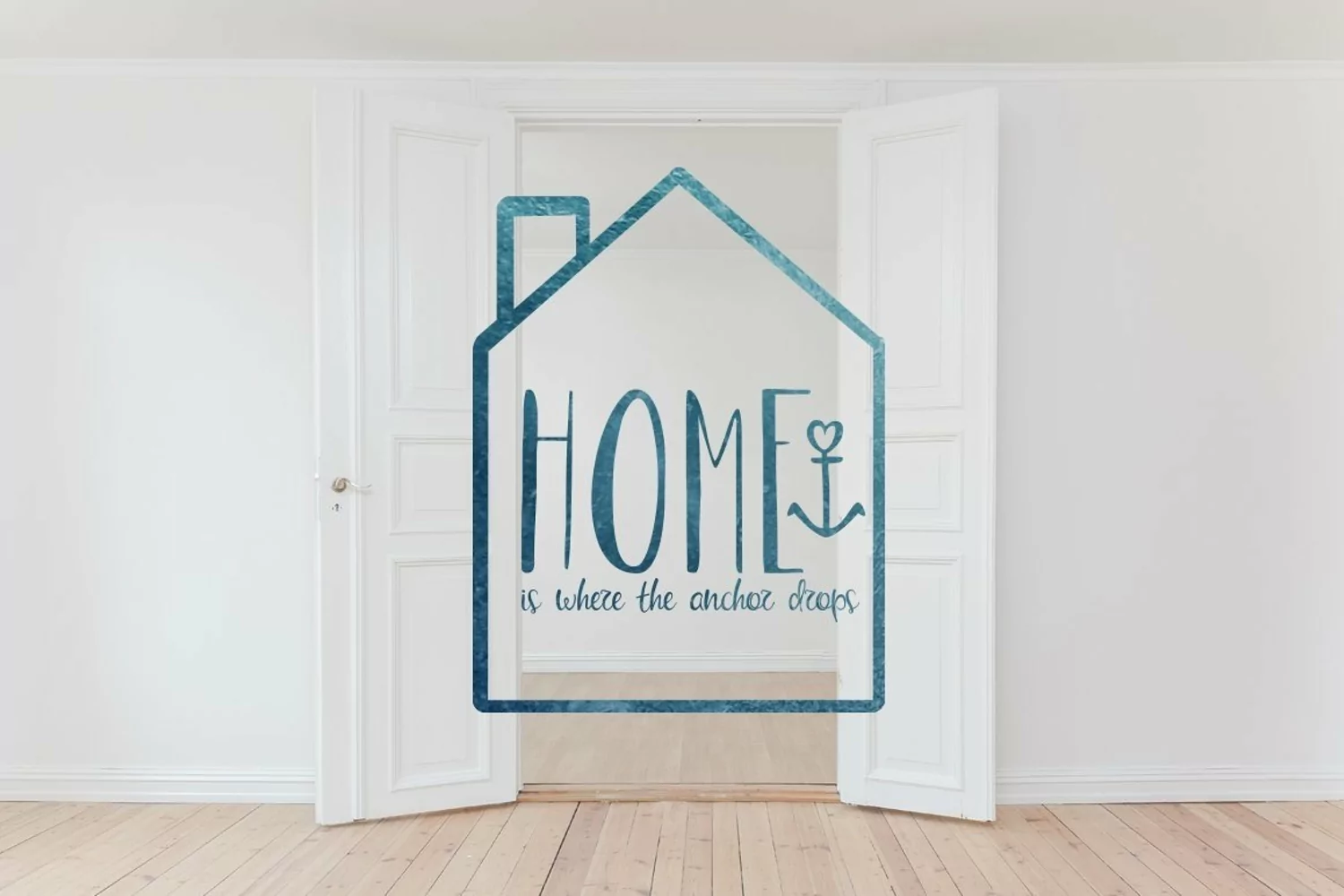
My Little Scandinavia - it's a handwritten font trio and cute scandinavian illustrations
My little Scandinavia extras includes 26 illustration from a to z